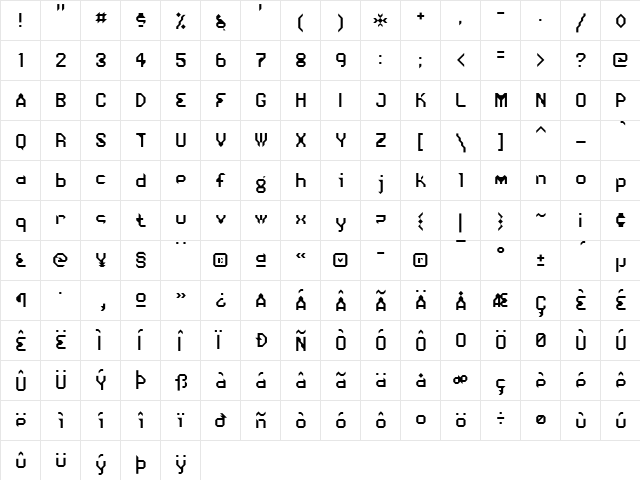
IsoOpto Regular Font Preview
IsoOpto Regular
IsoOpto Regular Font Details
Design Context for IsoOpto Typeface
IsoOpto offers clean, dependable letterforms without strong stylistic allegiance, making it a practical choice for designers who need flexibility.
Pro Tip: Pair IsoOpto with a font of contrasting weight or personality to build a more expressive typographic hierarchy.